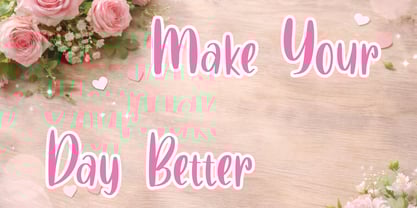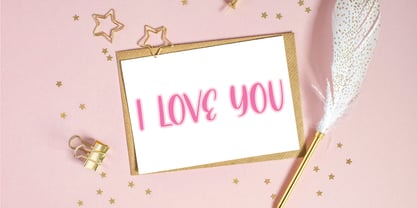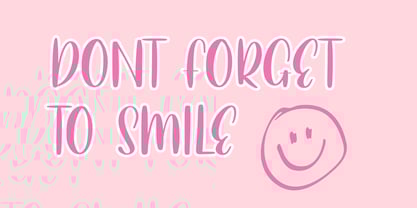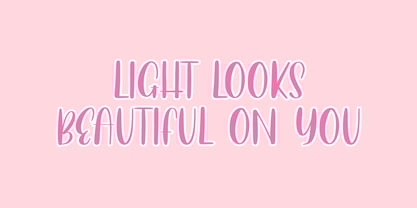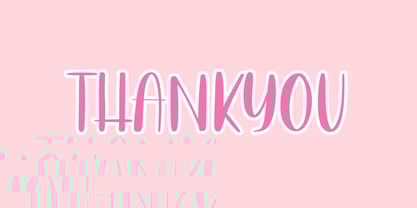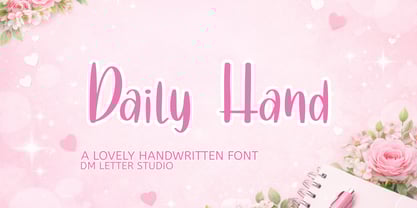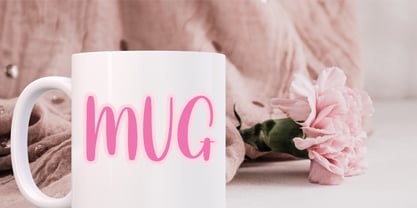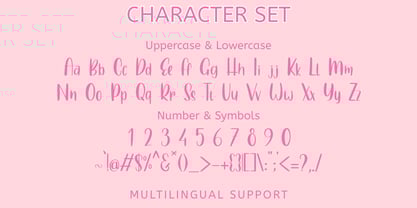
Daily Hand
by DM Studio
The Daily Hand Font Family was designed by Dimas Prasetyo and published by DM Studio. Daily Hand contains 1 styles.
Meet Daily Hand, the Beautiful Handwriting Font Daily Hand is a beautiful handwriting font with a soft, natural flow that feels personal and effortless. The strokes are smooth and slightly organic, giving every word a warm, human touch. It captures the look of real pen writing while staying clean and easy to read. Use Daily Hand for branding, planners, invitations, packaging, social media quotes, greeting cards, and lifestyle designs. As a result, your typography feels authentic, friendly, and perfectly balanced. Why Daily Hand sells First, Daily Hand installs quickly and works smoothly in Canva, Photoshop, Illustrator, and Procreate. Next, the balanced stroke weight prints cleanly for stickers, DTF, sublimation, and stationery projects. Then layouts come together faster because the natural rhythm makes words flow beautifully across the page. Moreover, handwriting fonts are always in demand for small business branding and personal projects. Therefore, Daily Hand is a versatile choice for both creative and commercial use. Fast layouts with the Daily Hand Font Start with short quotes or brand names to highlight the flowing connections. After that, pair Daily Hand with a simple serif or clean sans serif for supporting text. Because the style is soft and natural, it works beautifully on light backgrounds and minimal layouts. In addition, try increasing line spacing slightly for a more airy, elegant look. Finally, save gentle palettes like blush and ivory, sage and cream, navy and beige, or charcoal and soft gold for cohesive collections. Creative uses and quick wins Invitations and wedding stationery Boutique logos and packaging labels Planner designs and journal covers Social media quotes and greeting cards What you get Uppercase and lowercase letters Numbers and basic punctuation Design tips for Daily Hand Use Daily Hand for headlines, signatures, and accent text rather than long paragraphs. Also, give it enough breathing room so the handwriting flow stays readable. For print, export at 300 DPI to preserve smooth curves. For digital use, scale slightly larger so strokes remain crisp on mobile screens. Finally, keep effects minimal and let the natural handwriting shine.
Designers: Dimas Prasetyo
Publisher: DM Studio
Foundry: DM Studio
Design Owner: DM Studio